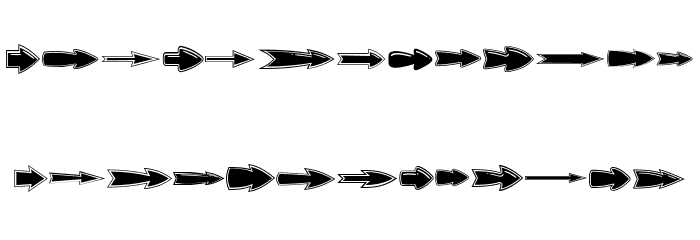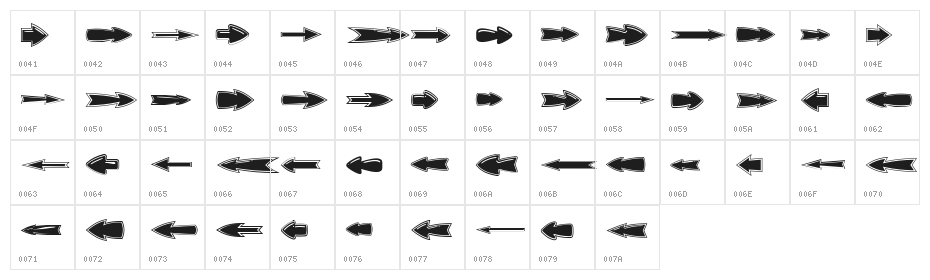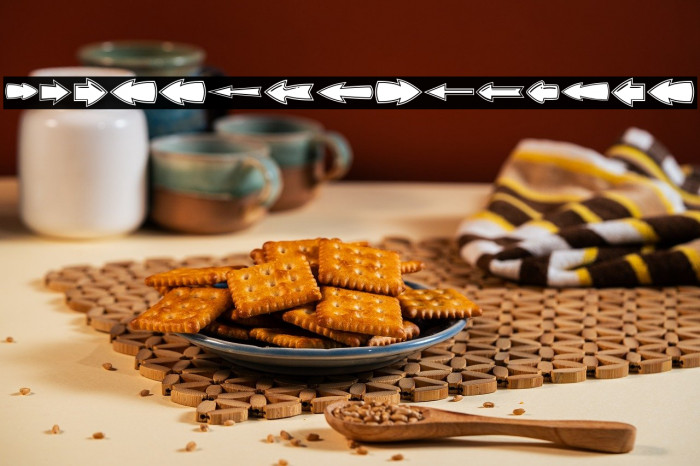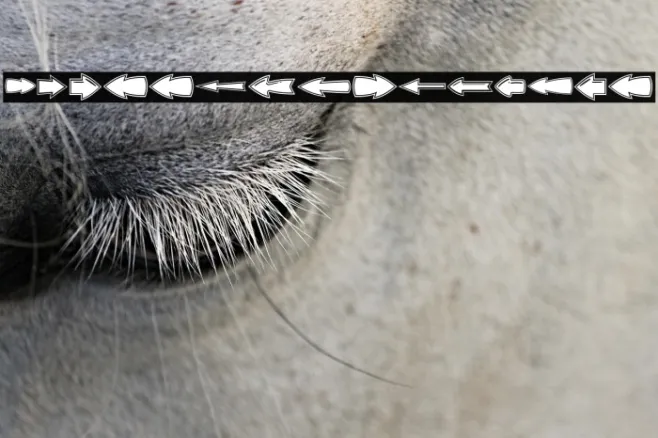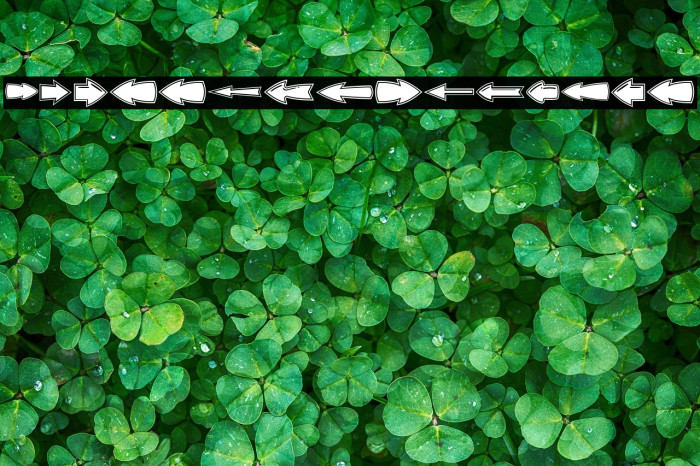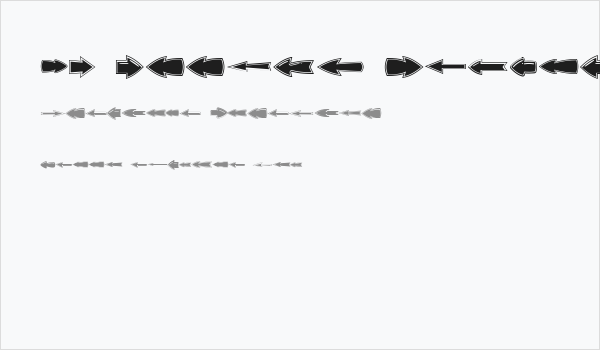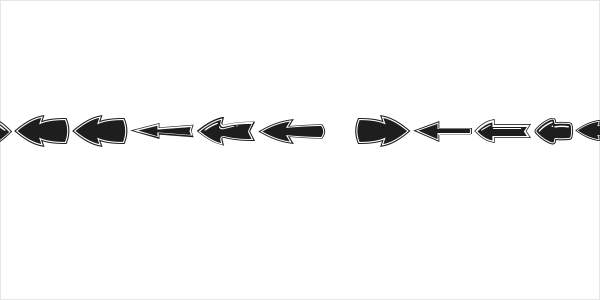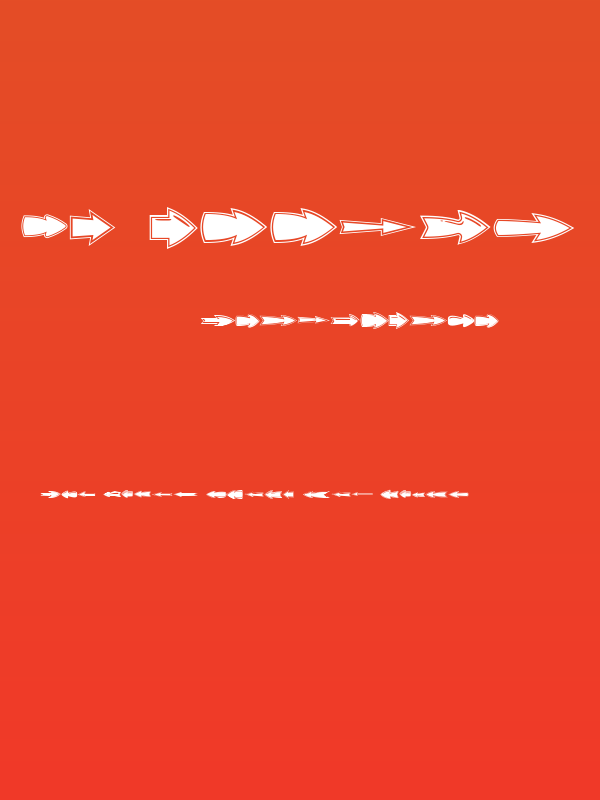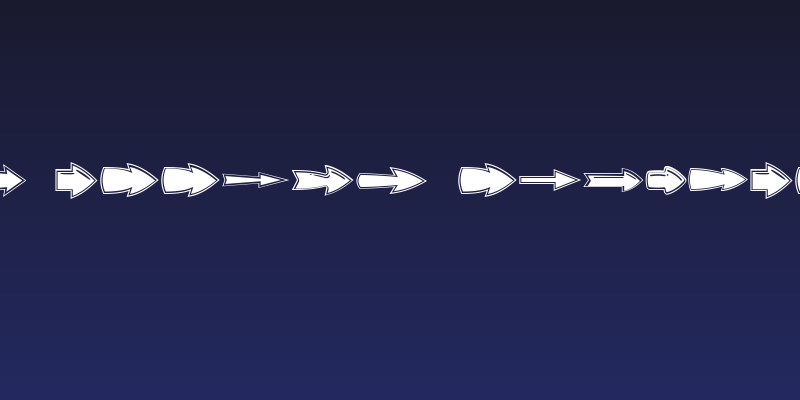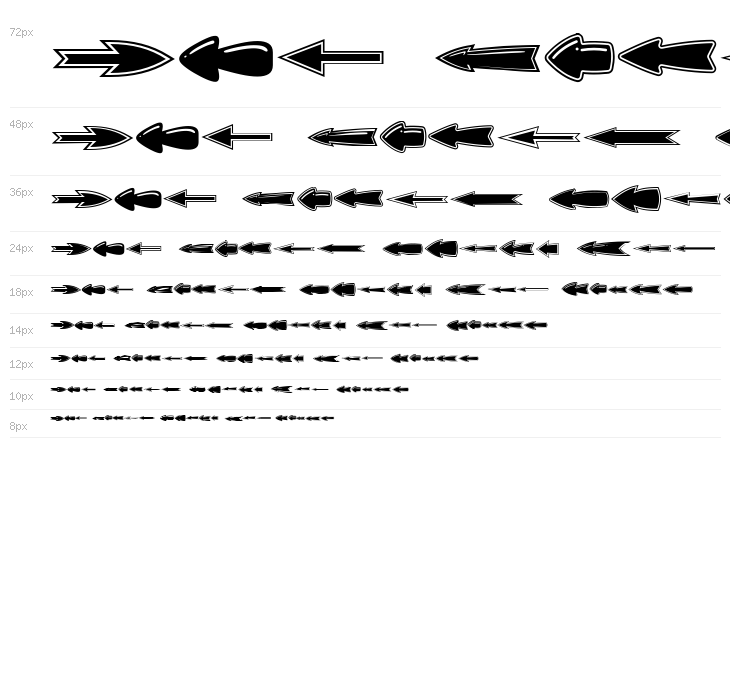
VN Arrows Regular Font
VN Arrows Regular Description
This is not a traditional font but rather a collection of arrow symbols. Each arrow is distinct, featuring various designs such as filled, outlined, and stylized forms. The arrows are bold and visually striking, making them suitable for directional signage or graphic design elements. The collection includes a variety of arrowheads and tails, offering versatility in design applications. The arrows are evenly spaced, providing a uniform appearance across the set.
| Use Case | Logos, Signage, Infographics |
| Proposed Projects | Ideal for use in graphic design projects, directional signage, infographics, and user interface elements. |